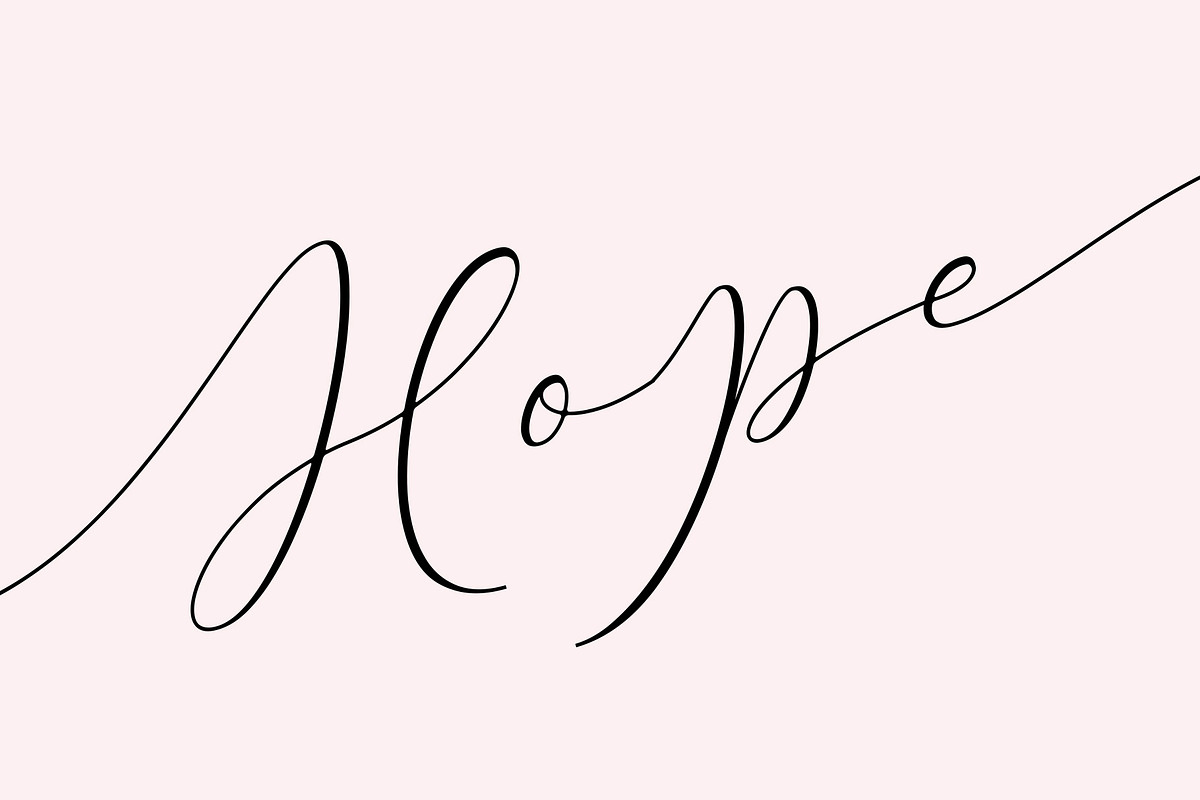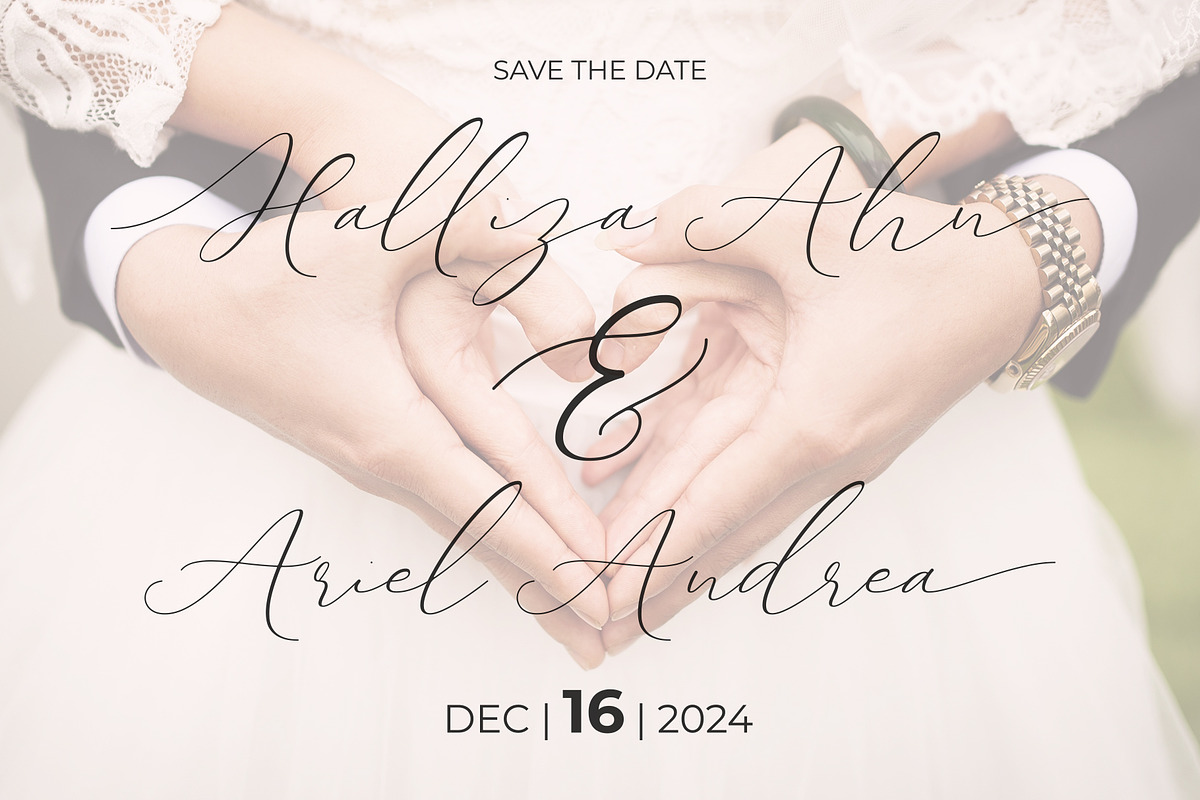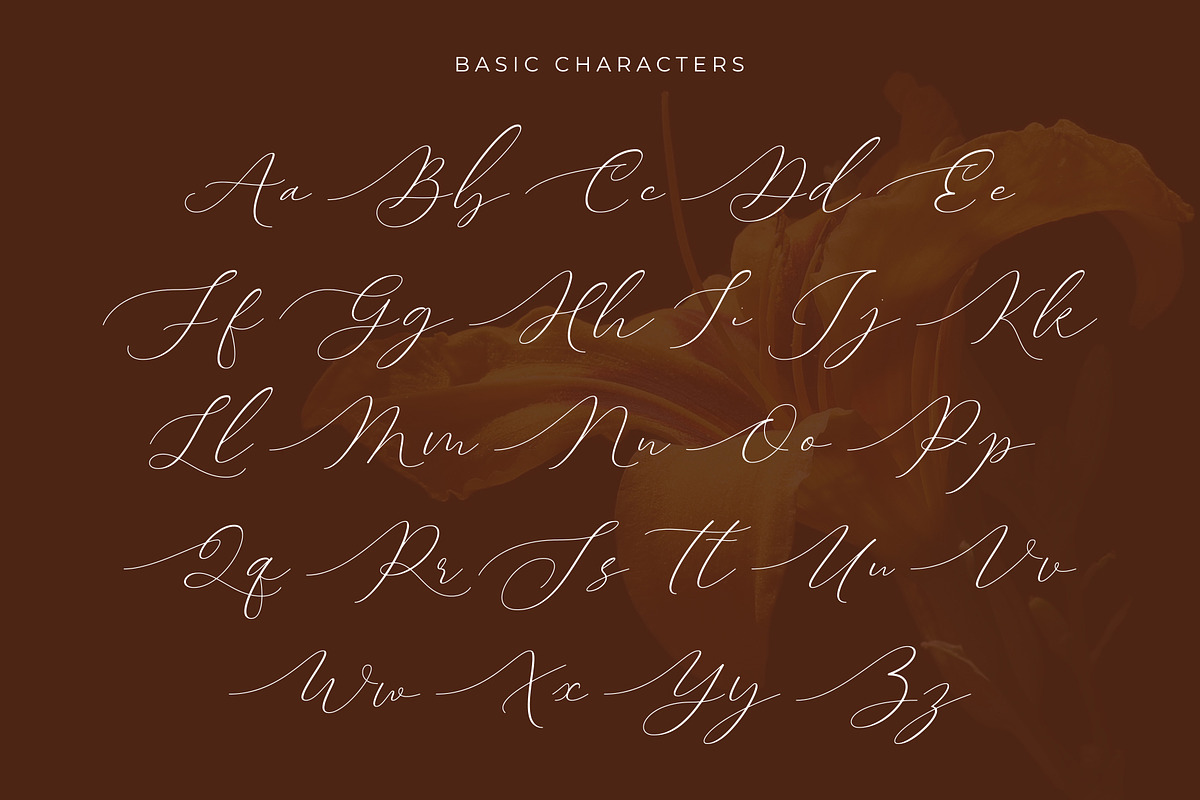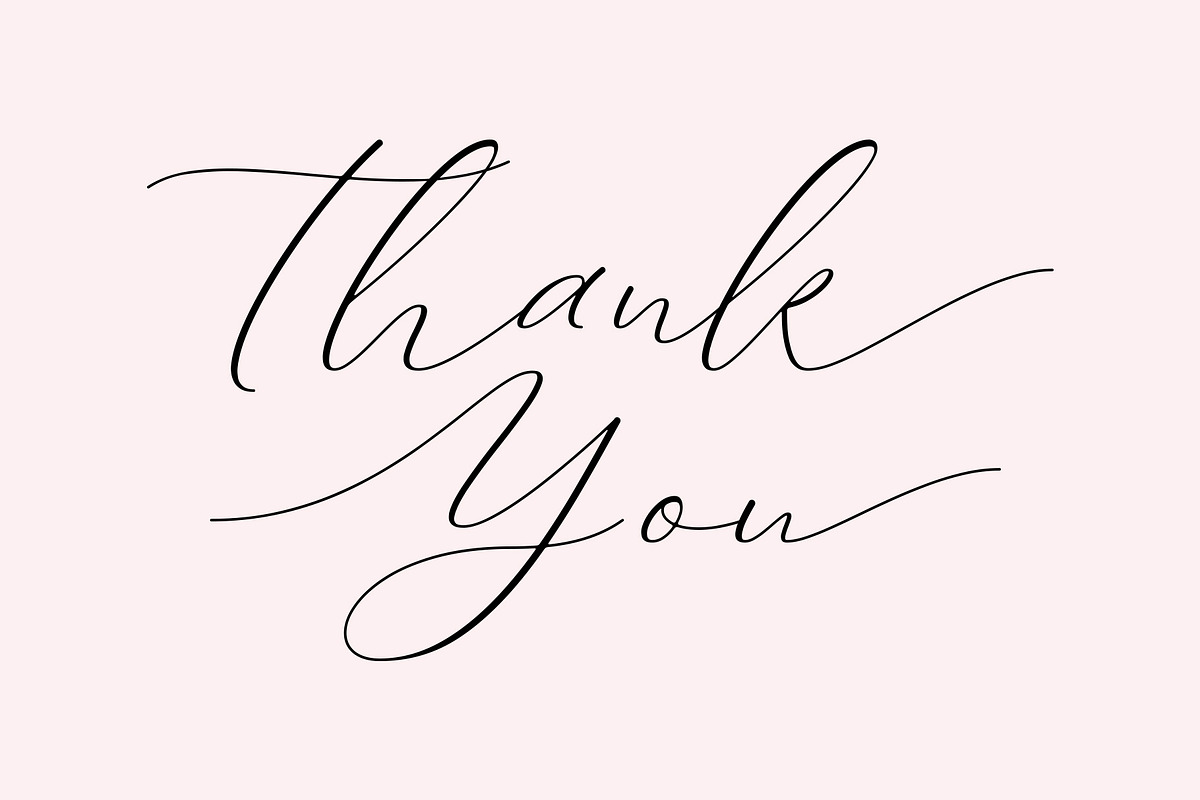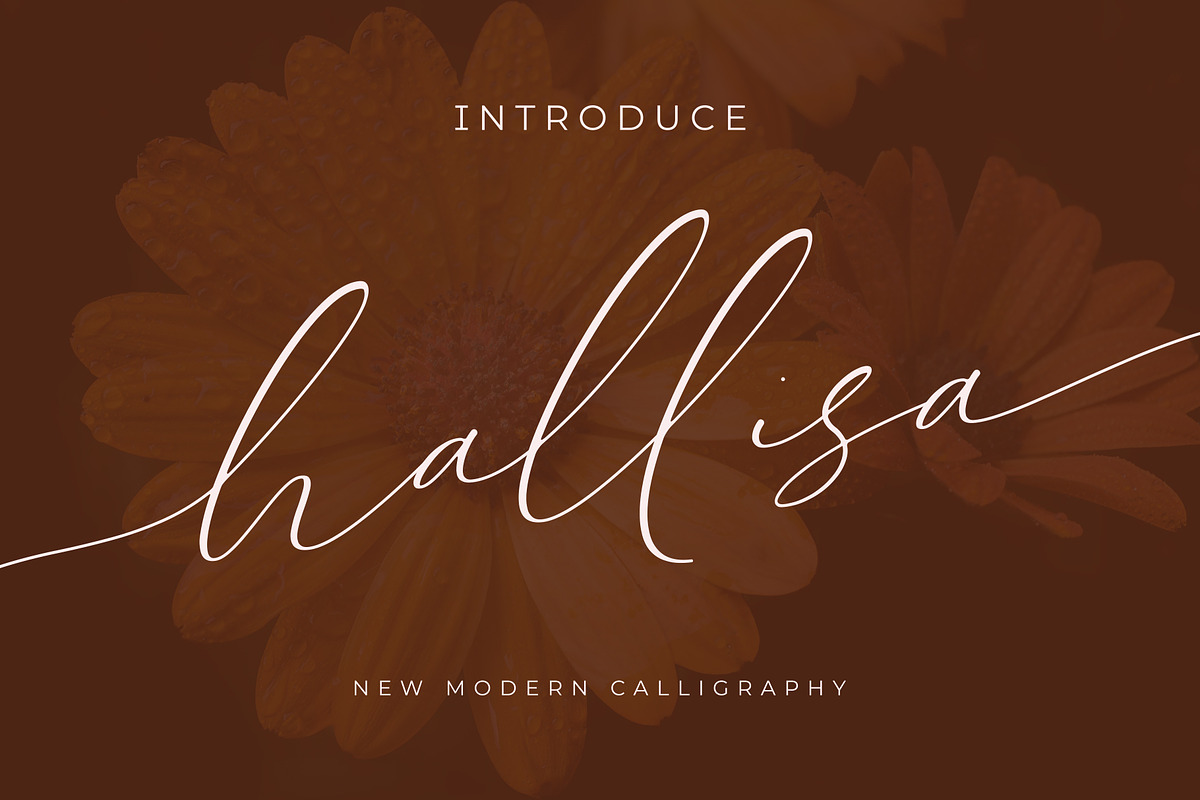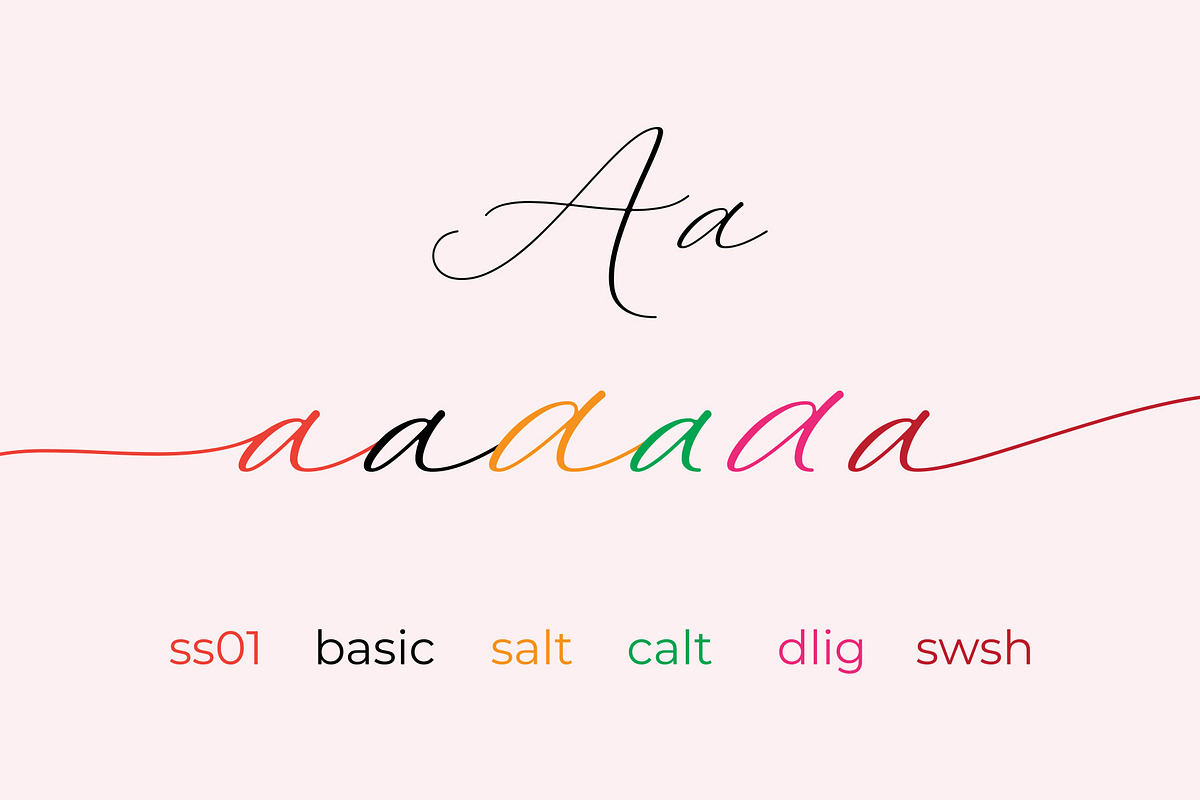
Hallisa Script
Hallisa Script | it's a modern calligraphy script font made with carefully it's make perfect to create Elegant Design, Modern, Vintage, Retro and more. So Choice any Glyphs and create the awesome typography and design use this.